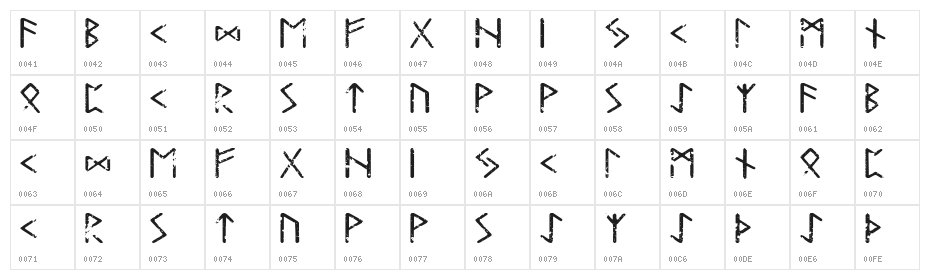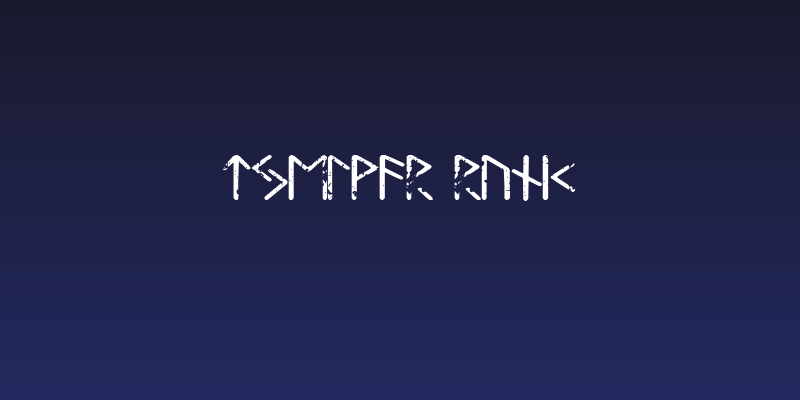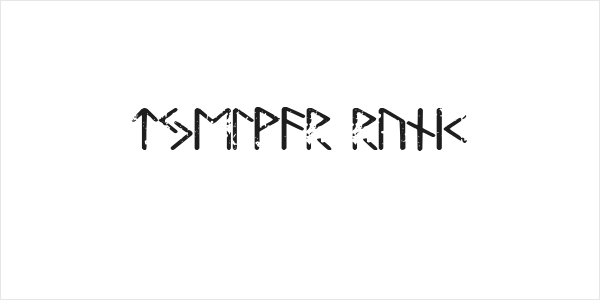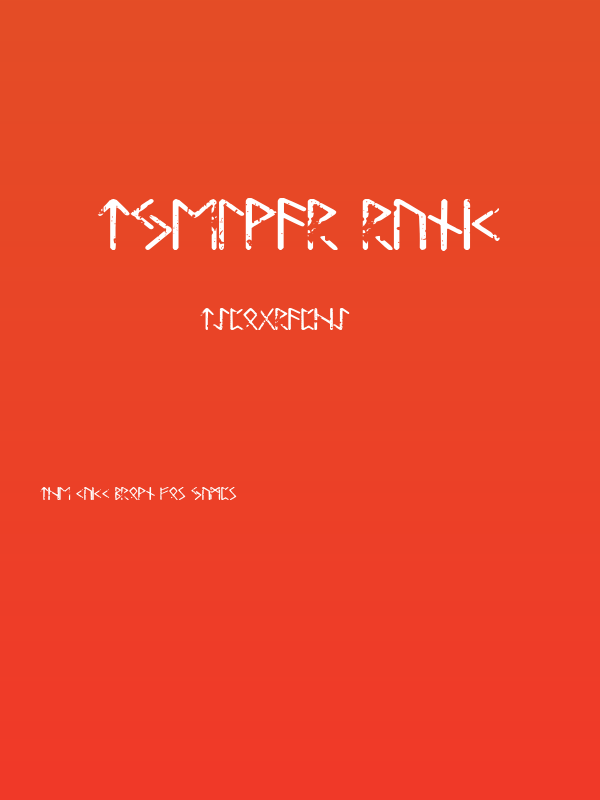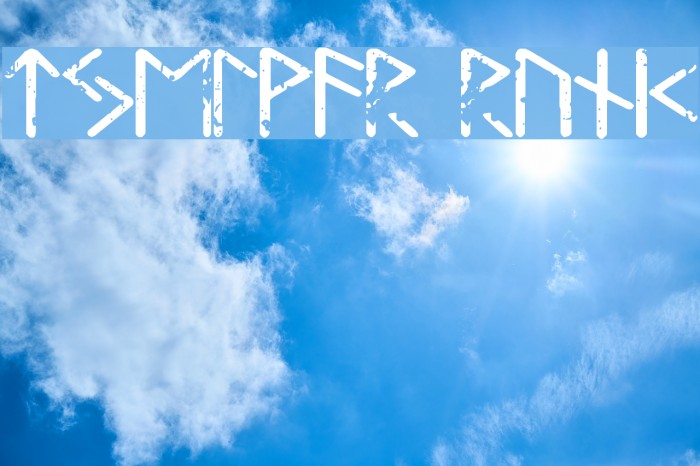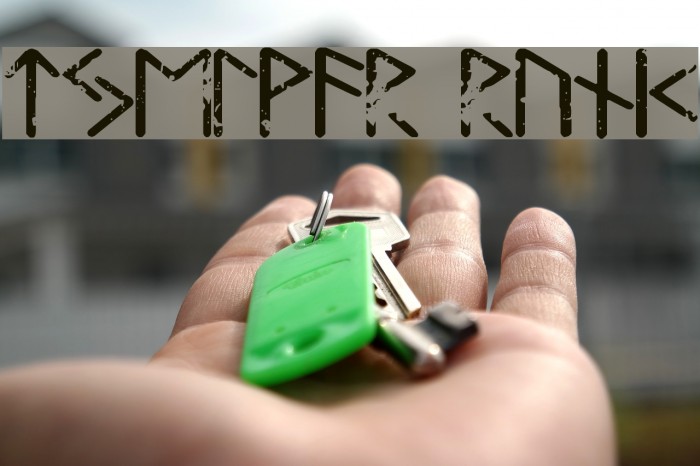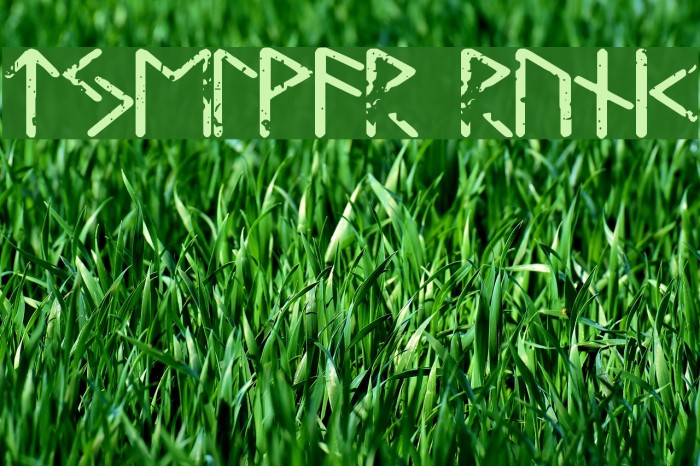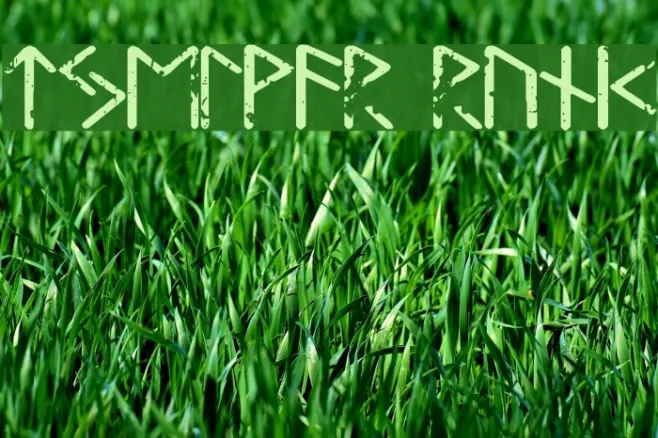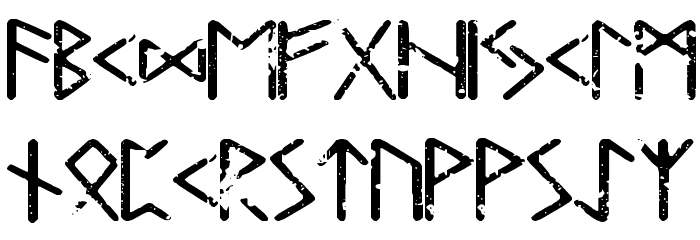
Tjelvar Runic Font
Tjelvar Runic Description
This font is inspired by ancient runic alphabets, featuring angular and geometric shapes that evoke a sense of mystery and antiquity. The characters are designed with a distressed texture, giving them a weathered and historical appearance. Each letter is crafted with sharp edges and straight lines, reminiscent of inscriptions carved into stone or wood. The font maintains a consistent style across both uppercase and lowercase letters, as well as numbers and special characters, ensuring a cohesive look. Its unique design makes it suitable for projects that require a touch of the archaic or mystical.
| Proposed Projects | Ideal for fantasy-themed designs, historical recreations, game titles, and decorative posters. |